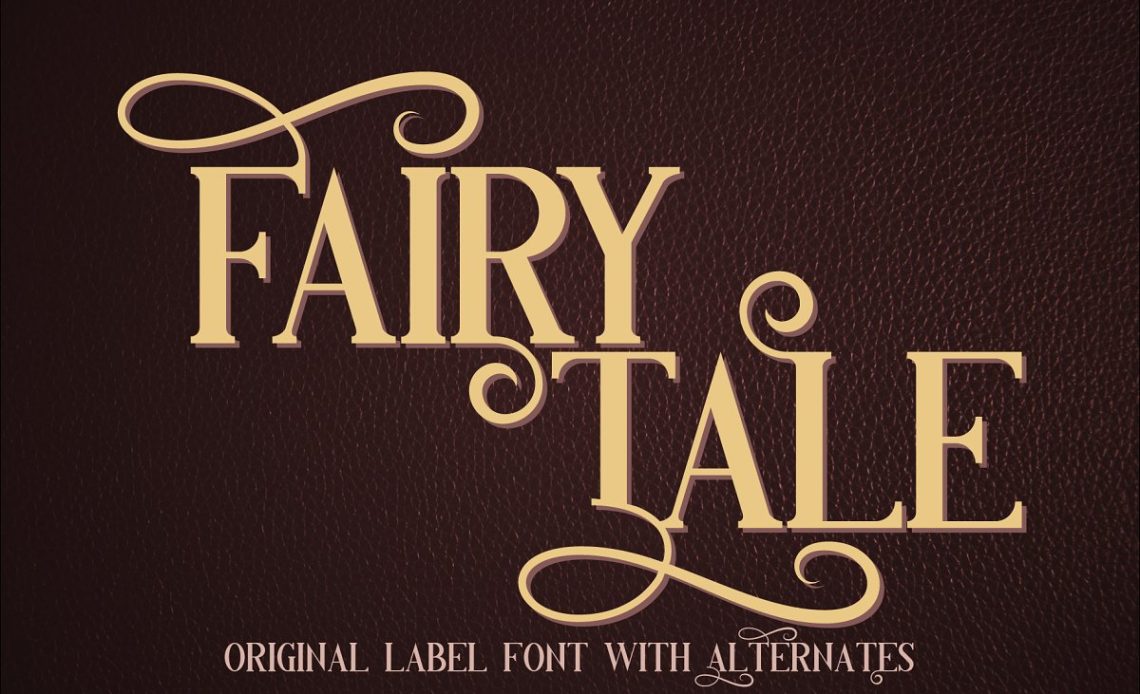
Introducing a vintage look label typeface named “Fairy Tale”. This typeface includes caps letters, numbers and special symbols, laternates, for sample look at 5th preview. This font contains alternates. Warning: alternates working only for capital letters, for use them (in Illustrator for example) just type your text in caps. Also default tracking for all characters is zero, adjust it for your taste. This typeface will look good on any vintage style design like labels, badges, posters, t-shirts etc.